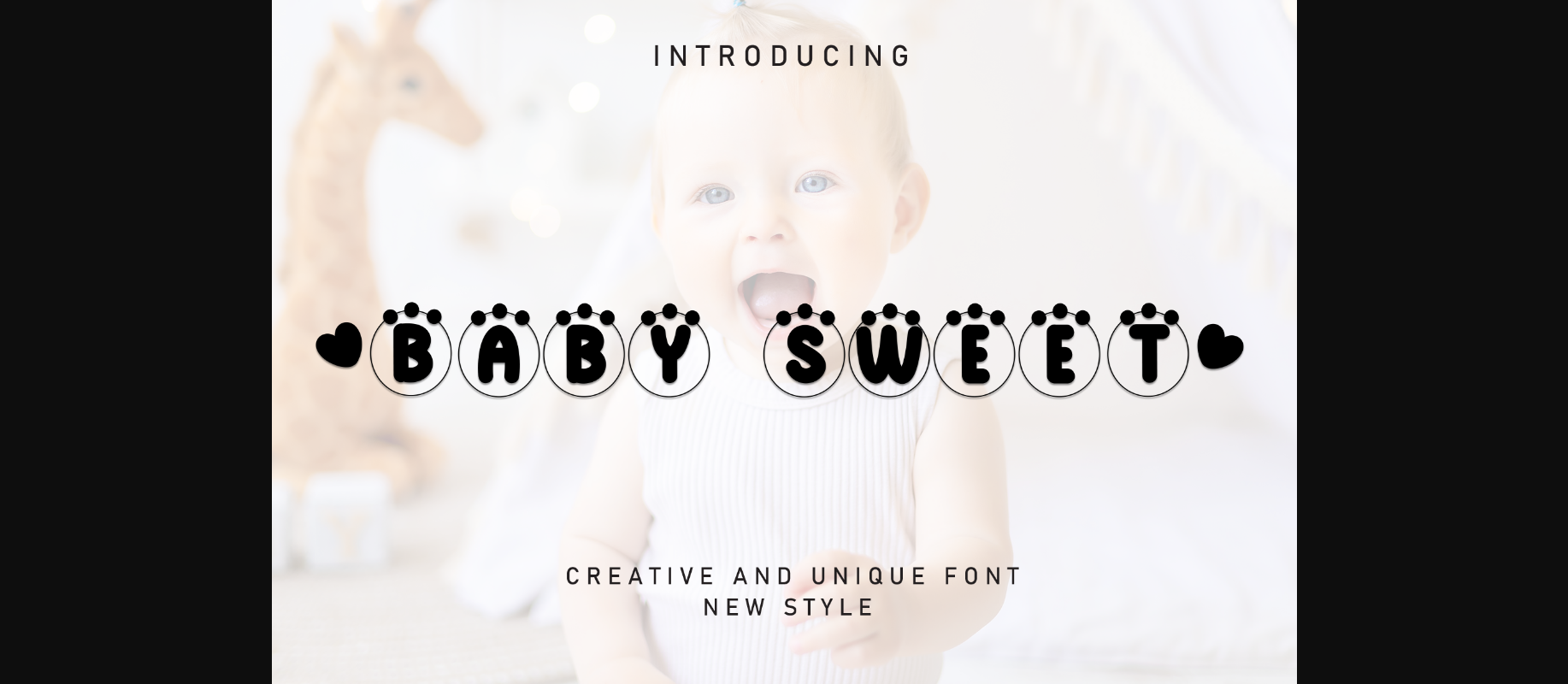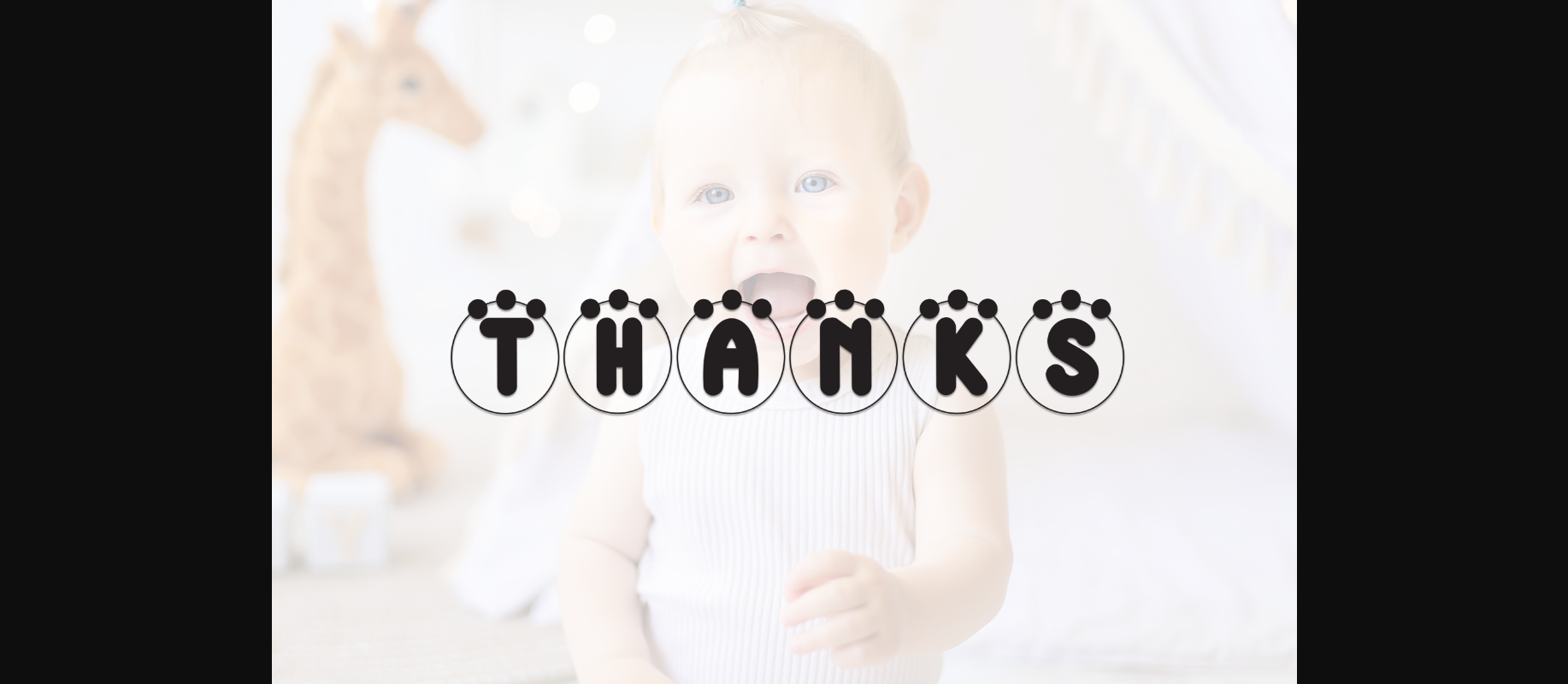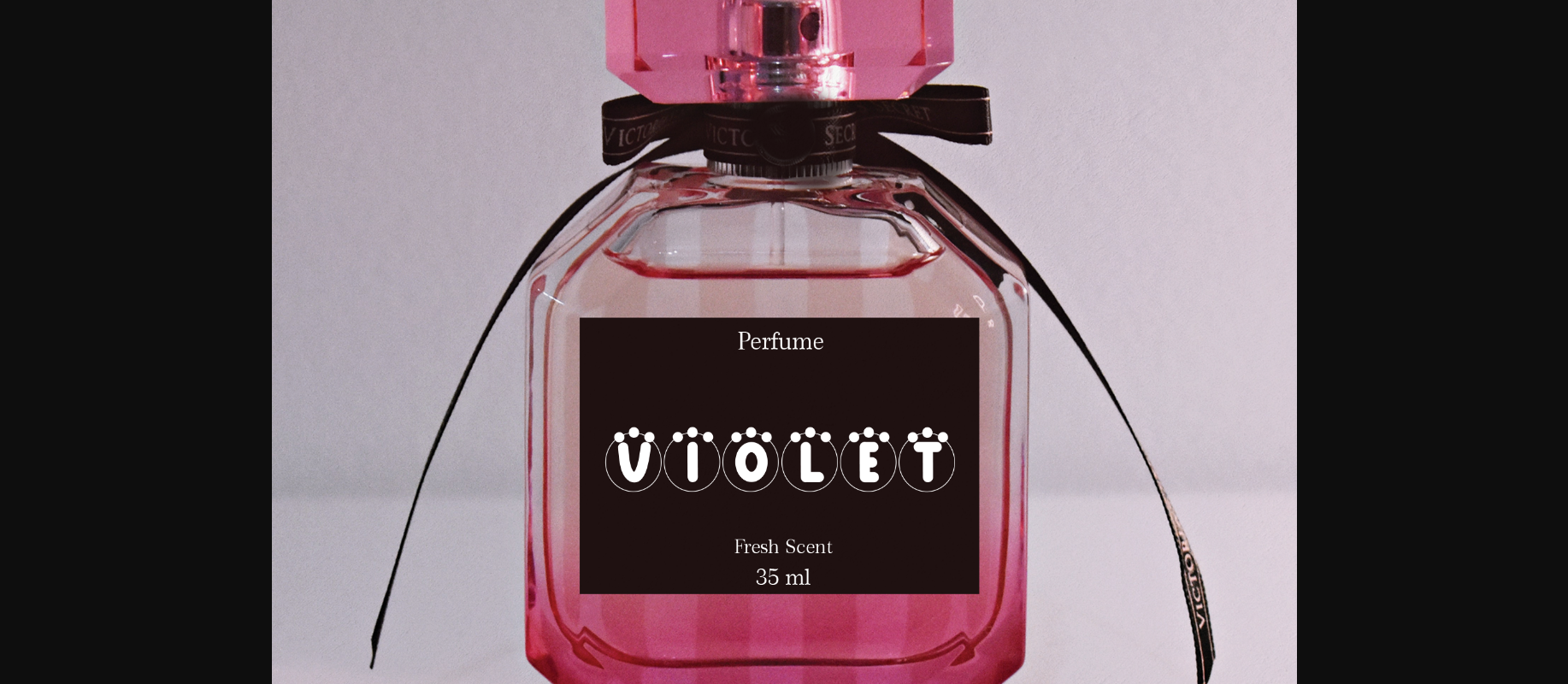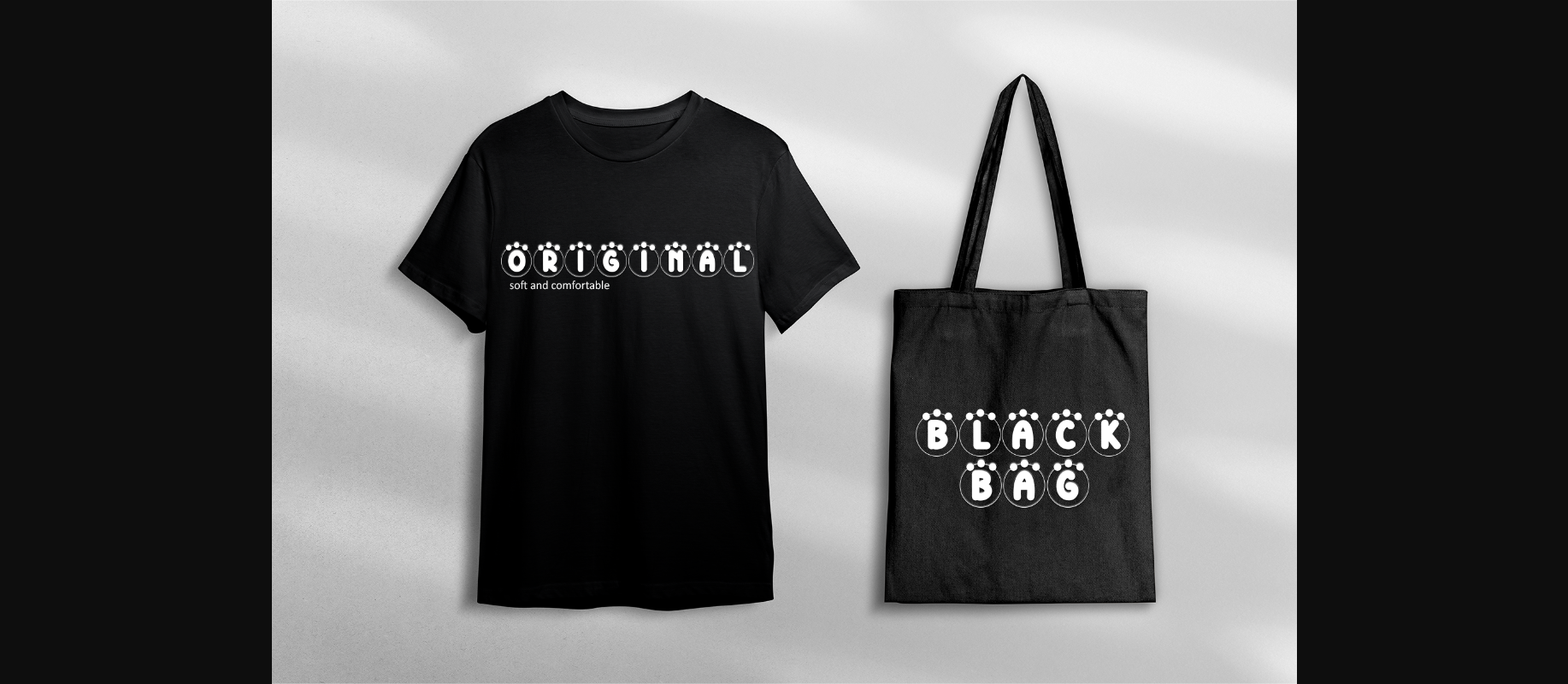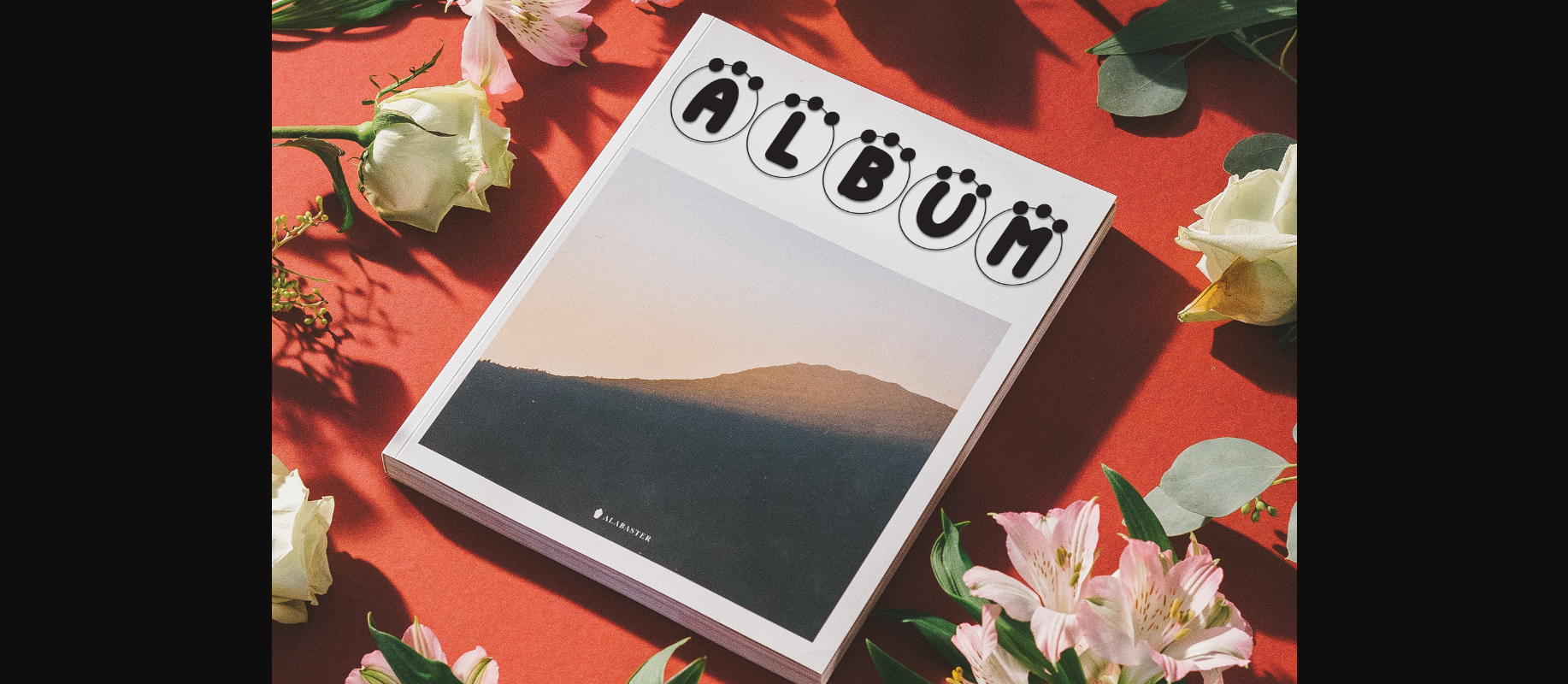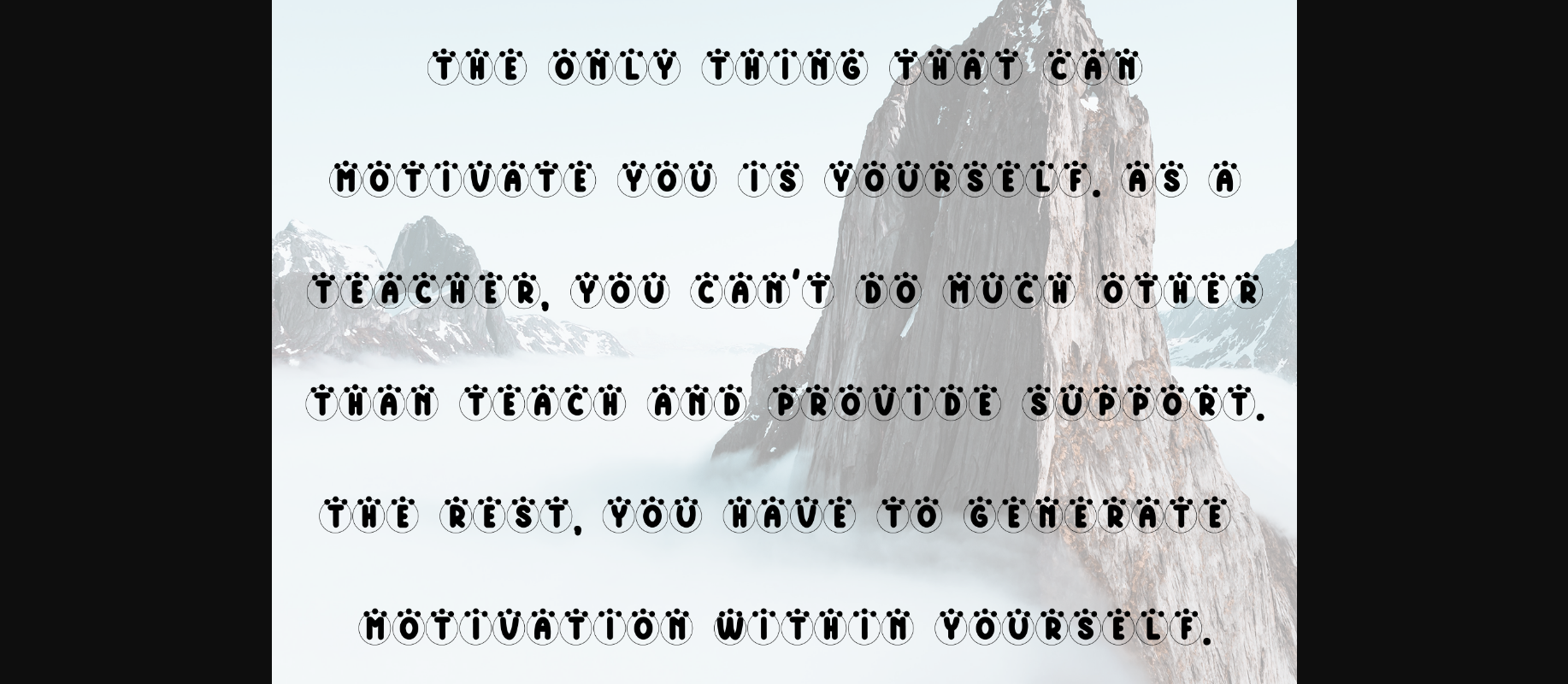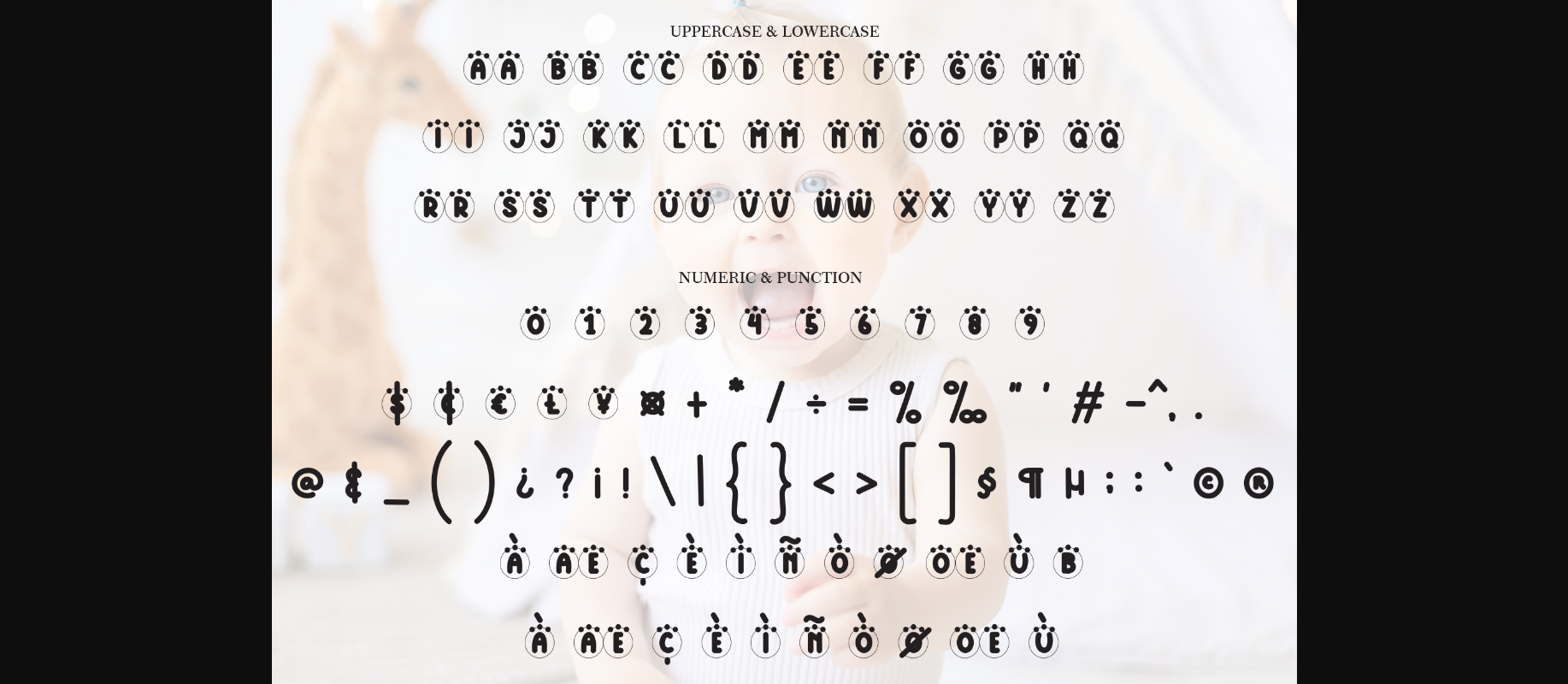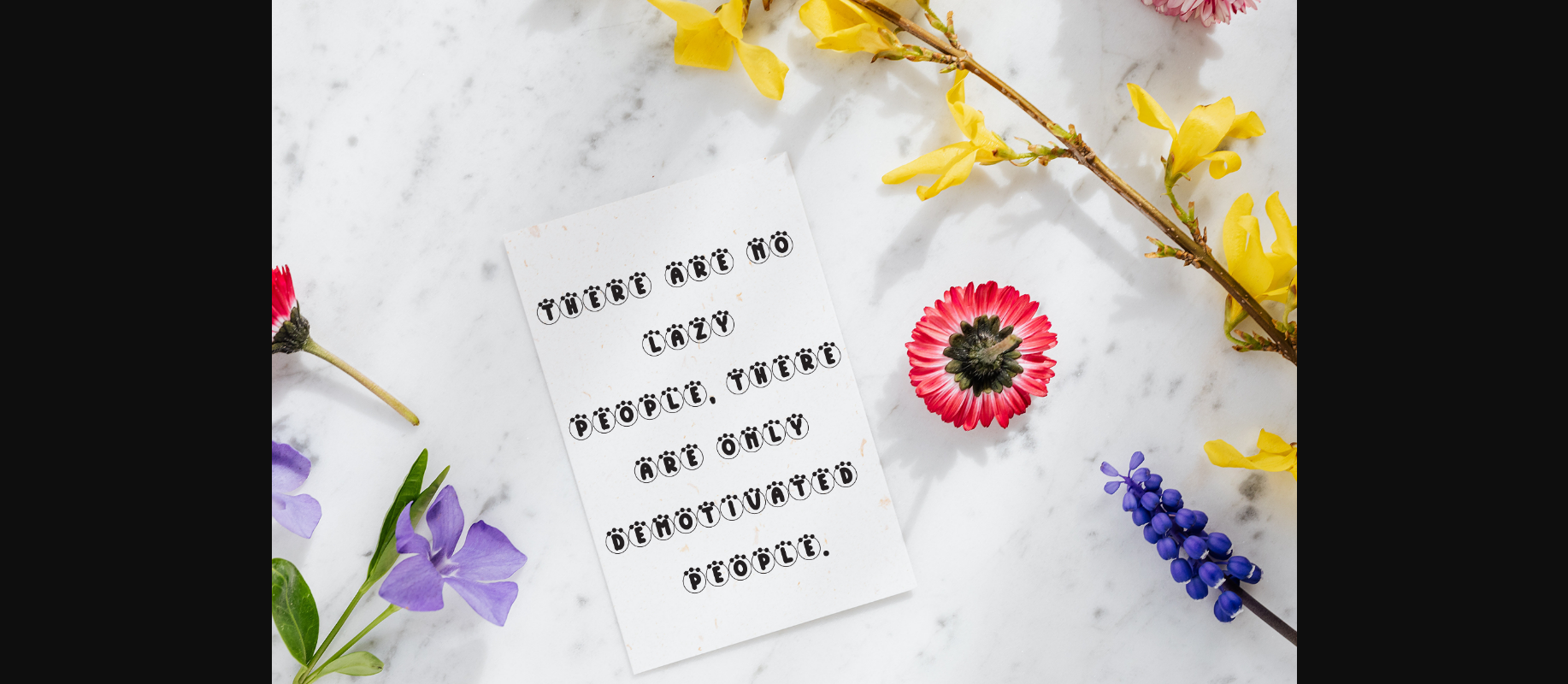
HomeDecorative FontsBaby Sweet Font Decorative Fonts Baby Sweet Font FacebookXPinterestWhatsApp 1 of 10 ... Baby Sweet Font Poster 2... Baby Sweet Font Poster 3... Baby Sweet Font Poster 4... Baby Sweet Font Poster 5... Baby Sweet Font Poster 6... Baby Sweet Font Poster 7... Baby Sweet Font Poster 8... Baby Sweet Font Poster 9... Baby Sweet Font Poster 10... About Baby Sweet Font Baby Sweet is a sweet decorative font. Simple but with a strong visual effect, this font will instantly make your creation more appealing than any others. DOWNLOAD NOW People also explored Fragmentix Font Twilight Sunflower Font Katiekate Font Christmas Magic Font JollyGood Serif Essentials Font Fresh Milk Font Outstanding Font Summercamp Font Signature Font 314 0 TagsBaby Sweet Font Previous articleSun Flower FontNext articleMemory Font LEAVE A REPLY Cancel reply Comment: Please enter your comment! Name:* Please enter your name here Email:* You have entered an incorrect email address! Please enter your email address here Website: Save my name, email, and website in this browser for the next time I comment. Personal Use Free Cokobi Personal Use Free Read more about this font Satori Personal Use Free Read more about this font Strings Personal Use Free Read more about this font Fadhista Personal Use Free Read more about this font BLOG Free Fonts Risk: Why Free Fonts Can Be Dangerous for Designers Free Fonts Risk: Why Free Fonts Can Be Dangerous for Designers Using free fonts is a common practice in web and graphic design. However, the... Using Fonts in Digital Marketing: Tips to Strengthen Your Brand Identity Transform Your Website: Elevate Your Typography with 7 Best Web Font Generators Fonts That Capture the Spirit of New York City